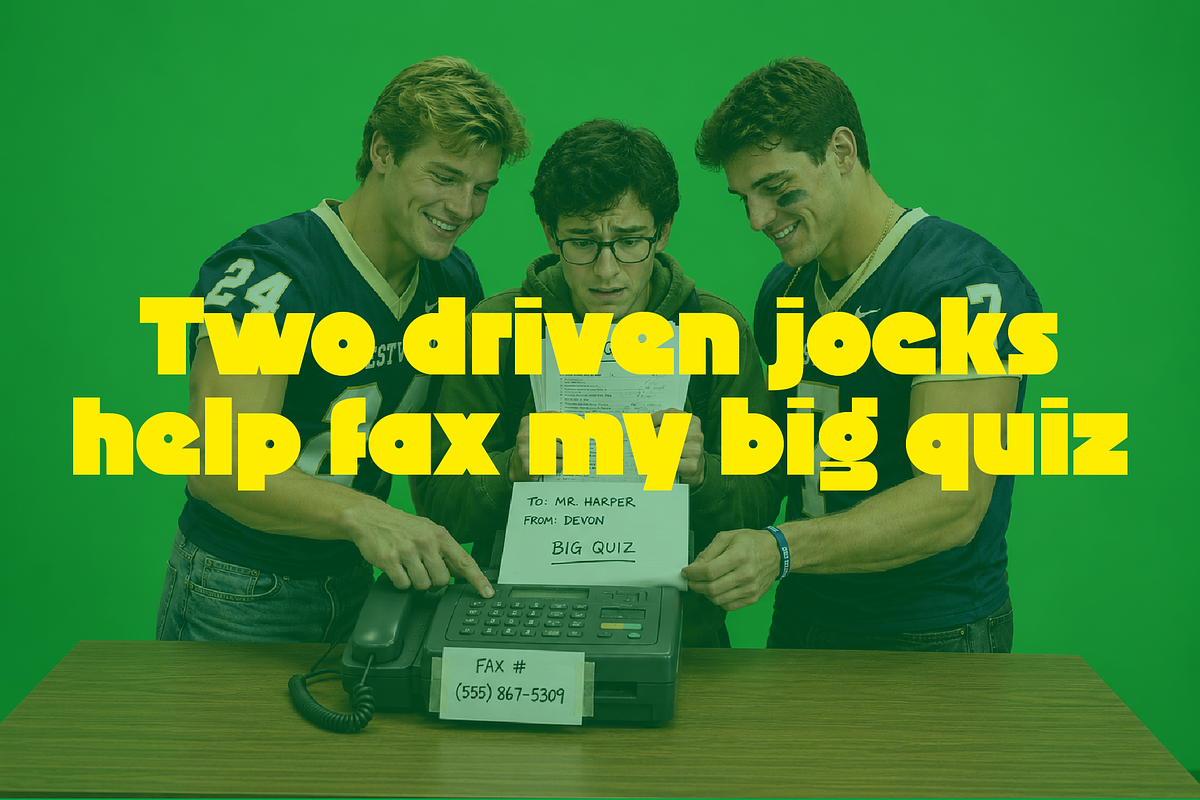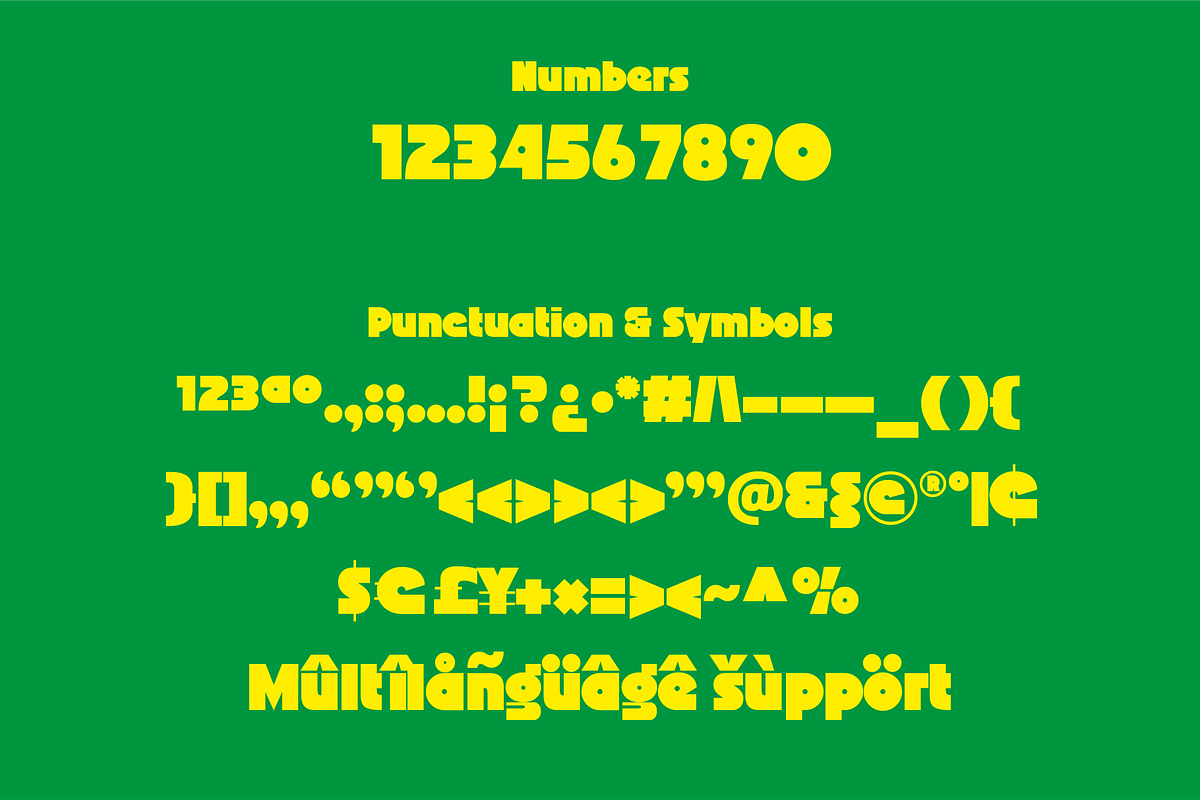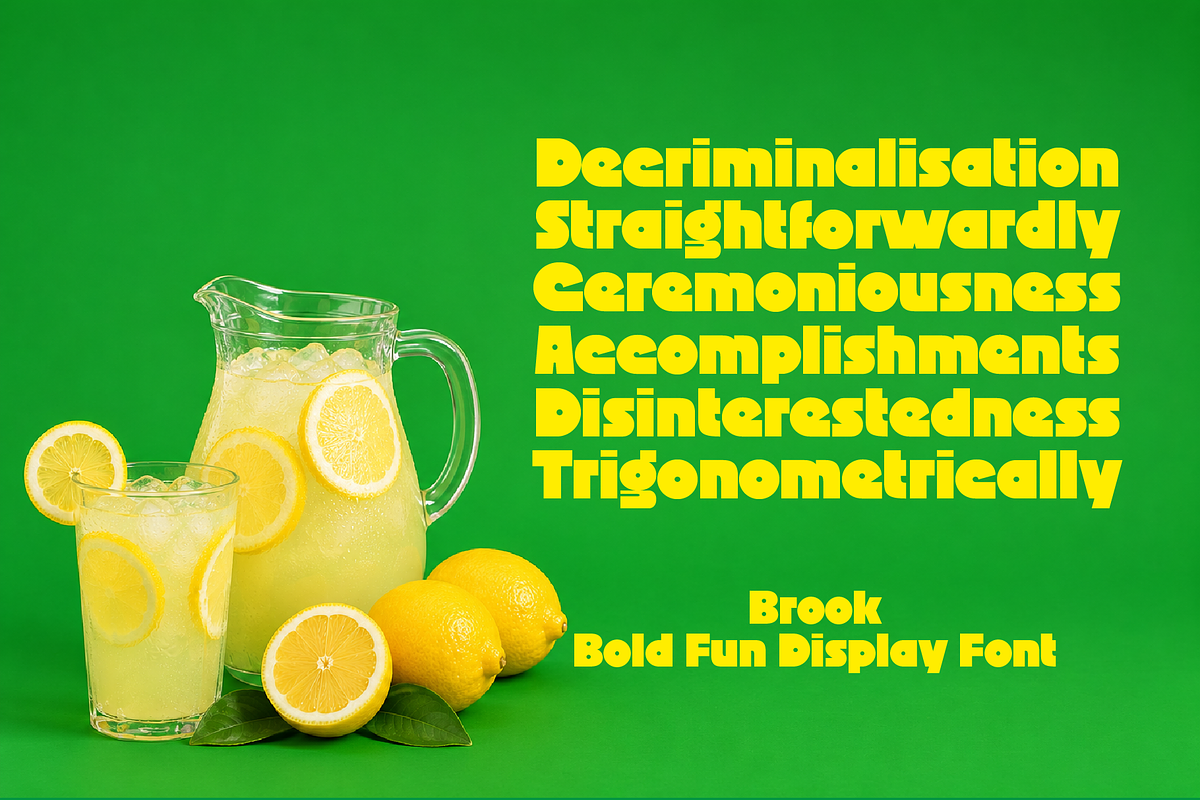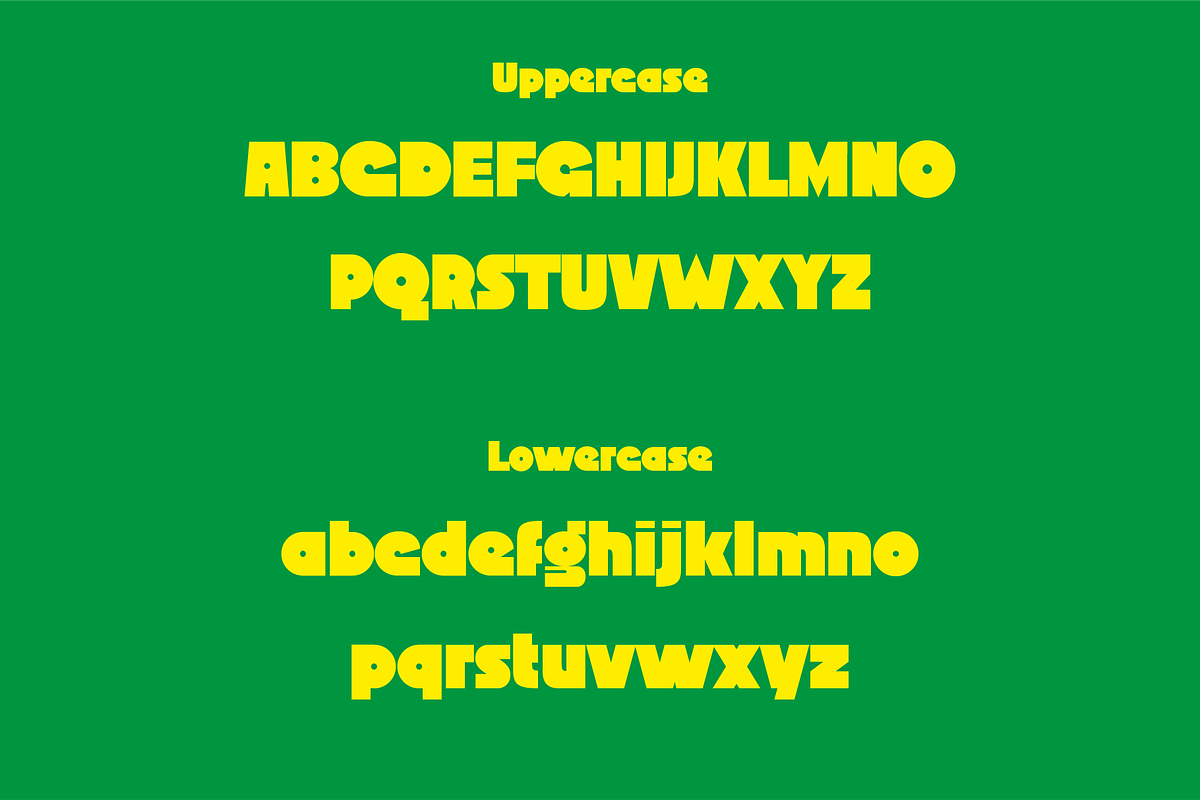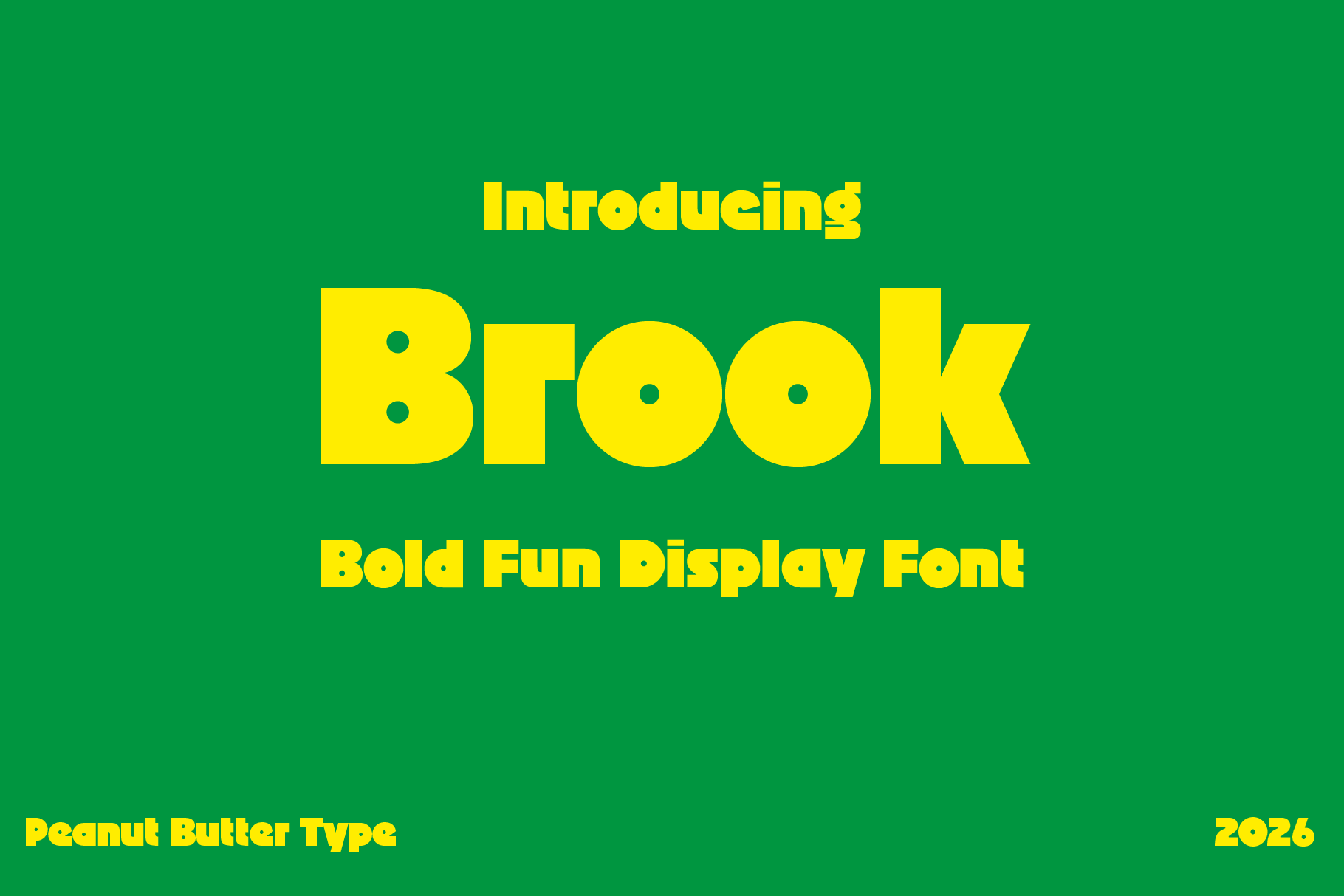
Brook Bold Fun Display Font
Brook is a bold and fun display font designed to bring energy and personality to any creative project. With its thick letterforms, playful curves, and eye-catching presence, Brook is perfect for headlines, logos, posters, packaging, children's designs, social media graphics, and branding projects that need a cheerful and confident look. Its strong character and friendly style make it easy to create designs that stand out while maintaining excellent readability. Whether you're working on a fun event, a vibrant brand identity, or a playful marketing campaign, Brook adds a lively and memorable touch to your typography.